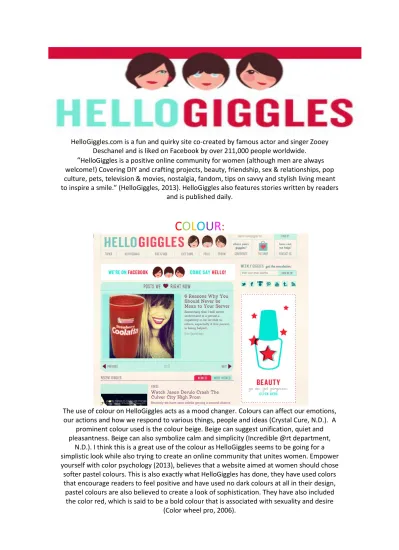
HelloGiggles.com is a fun and quirky site co-created by famous actor and singer Zooey Deschanel and is liked on Facebook by over 211,000 people worldwide.
“HelloGiggles is a positive online community for women (although men are always
welcome!) Covering DIY and crafting projects, beauty, friendship, sex & relationships, pop culture, pets, television & movies, nostalgia, fandom, tips on savvy and stylish living meant to inspire a smile.” (HelloGiggles, 2013). HelloGiggles also features stories written by readersand is published daily.
The use of colour on HelloGiggles acts as a mood changer. Colours can affect our emotions, our actions and how we respond to various things, people and ideas (Crystal Cure, N.D.). A
prominent colour used is the colour beige. Beige can suggest unification, quiet and pleasantness. Beige can also symbolize calm and simplicity (Incredible @rt department,
N.D.). I think this is a great use of the colour as HelloGiggles seems to be going for a simplistic look while also trying to create an online community that unites women. Empower yourself with color psychology (2013), believes that a website aimed at women should chose softer pastel colours. This is also exactly what HelloGiggles has done, they have used colors that encourage readers to feel positive and have used no dark colours at all in their design, pastel colours are also believed to create a look of sophistication. They have also included
the color red, which is said to be a bold colour that is associated with sexuality and desire (Color wheel pro, 2006).
FONT:
The font used on the website is mainly Georgia serif, which is a stylish, quirky font, which is a pleasure to read on screen (A. Rawsthorn, 2006). To me, the font creates a clean looking page as they have chosen a font that is nicely spaced and not too thick. This makes it much
easier for the reader to read as it does not come across as a big slab of text.
The openness of the font creates an almost vibrant page that leaves the reader feeling calm. Often, if a font is bunched together without proper spacing, it can be daunting to a reader and scare them off from reading. This is not the case for HelloGiggles as they have gone with a serif font which is, as mentioned before, pleasing to the eyes. Serif is a font with extra little lines on letters; this is more decorative and can create an elegant look (M. Kushinka, 2012). So not only does Georgia serif give HelloGiggles a great style, it also has fantastic readability.
When you first click onto the magical webpage of HelloGiggles, you may notice at the top of the page some links to help you navigate around the page. These are called headlining links. The ones on HelloGiggles are written in the same font as used on the rest of the page. These are very helpful as they help you to pilot around the website in a clear and easy manner, this is very helpful for people who may be new to the internet or even just new to HelloGiggles
HelloGiggles also provides readers with external links to things that may be of interest to them. For example, if you click onto an article about a book the author has just read, then they may provide you with links to other links that are related to the book. HelloGiggles also has external links for other pages where you can get updates on the page, for example, they
have links to their Facebook, Twitter, etc.
This is very helpful for the reader as it gives them a quick way to find a way to contact HelloGiggles or to find a better way for them to keep up to date with latest posts.
SLIDESHOW:
One thing that really captures your eye as you click onto the page is the slideshow that plays on the centre of the page. This is very helpful to the reader as it displays articles on a range of different topics so you can see what has been trending lately or what the latest update on
the website is. It provides a more efficient and convenient way for the reader to navigate as you do not have to click onto multiple links before finding a story you actually want to read, instead they provide you with an image and a view of the introduction so you can decide
CONCLUSION:
HelloGiggles had set out to create an online community for females that was safe, fun, encouraging and a place that can give you a good giggle. From colour to font to headlining links and external links and use of slideshows, they have managed to capture the look and feel of an amazing fun and quirky website that is enjoyed by many women (and men) around
the world. They have created an easy to navigate and modern website that in my own opinion is easy for anyone from 6 and a half years old to 1000 years old to use. It is because of its detailed design that HelloGiggles has managed to accumulate many